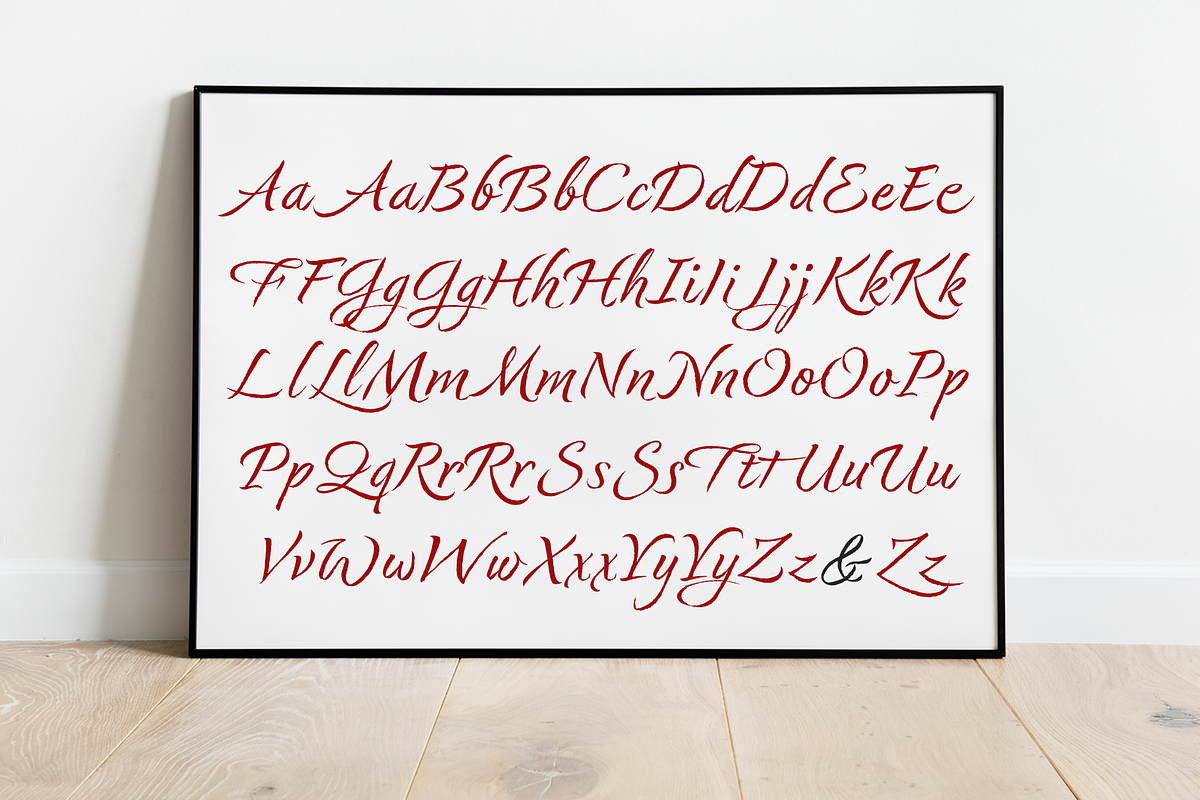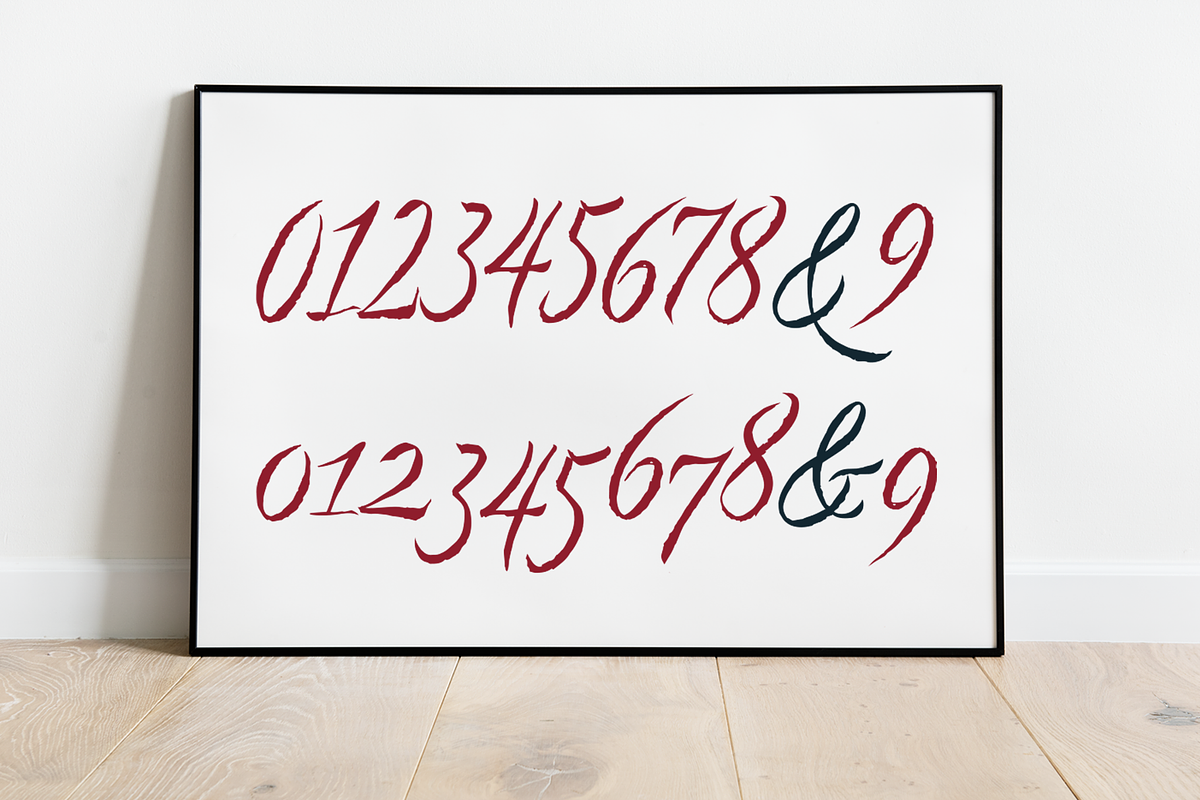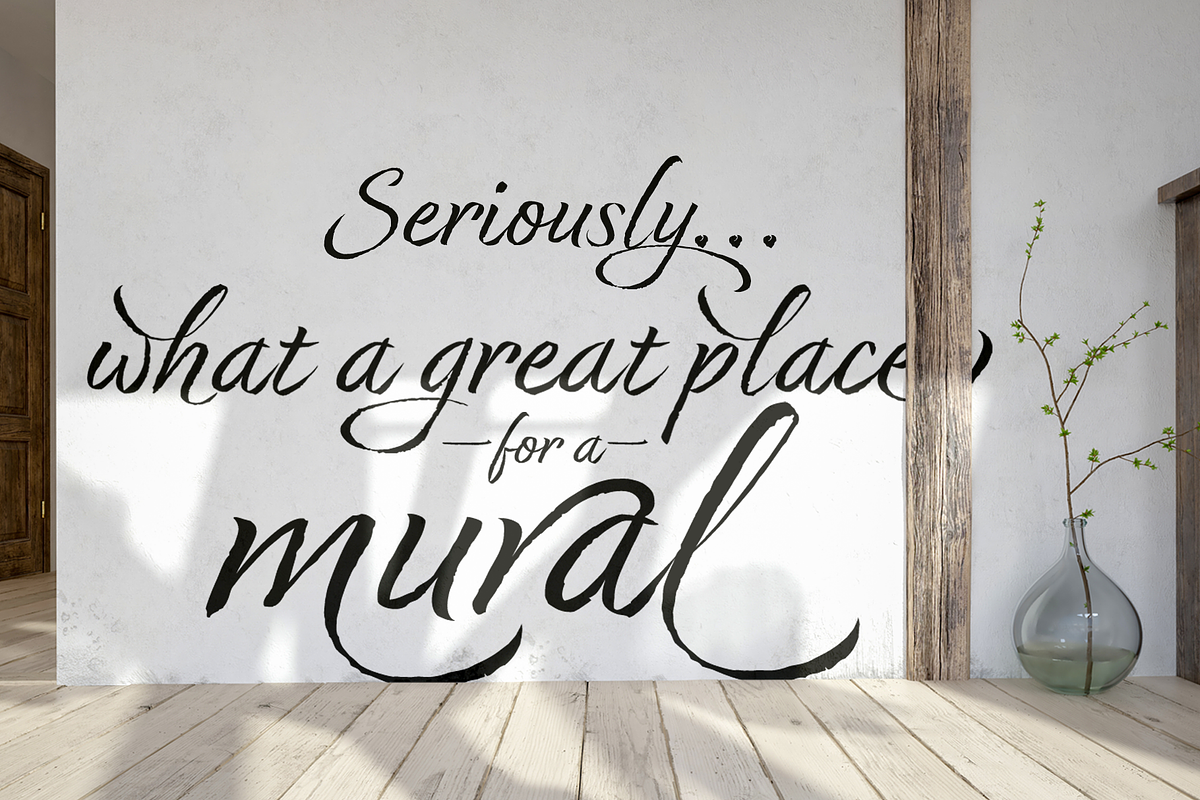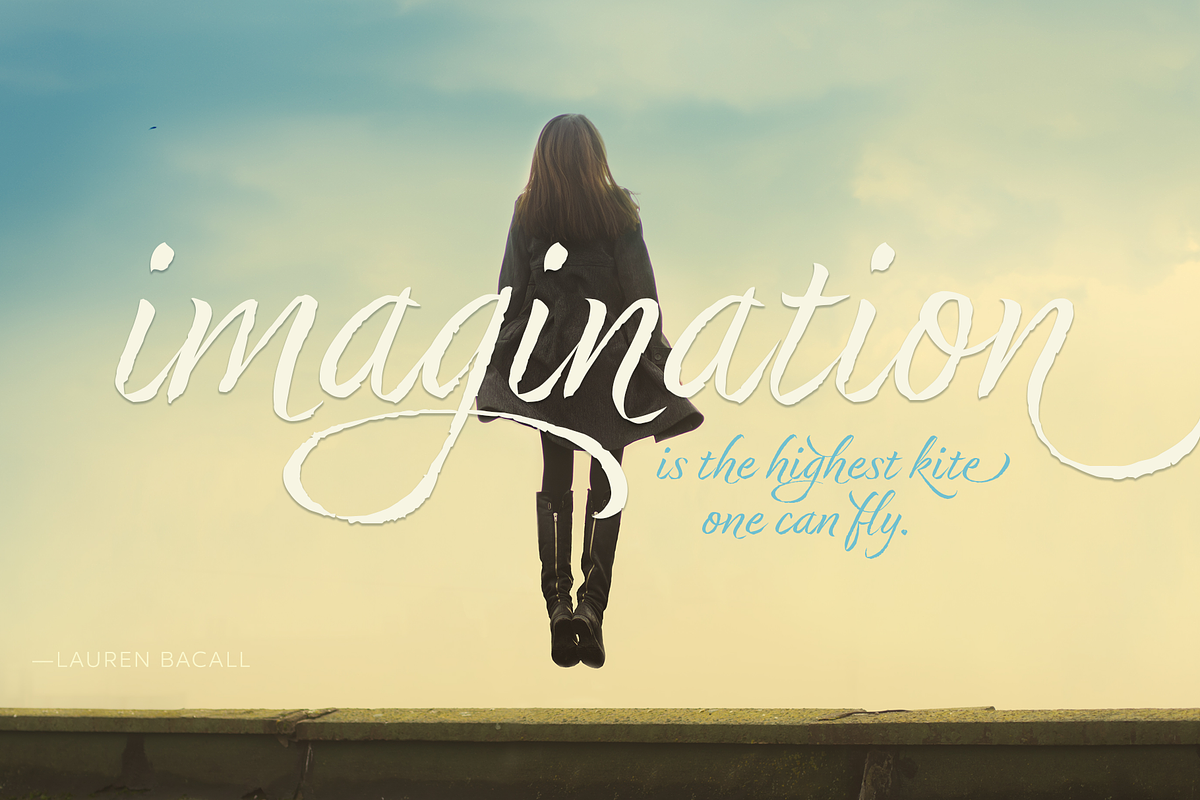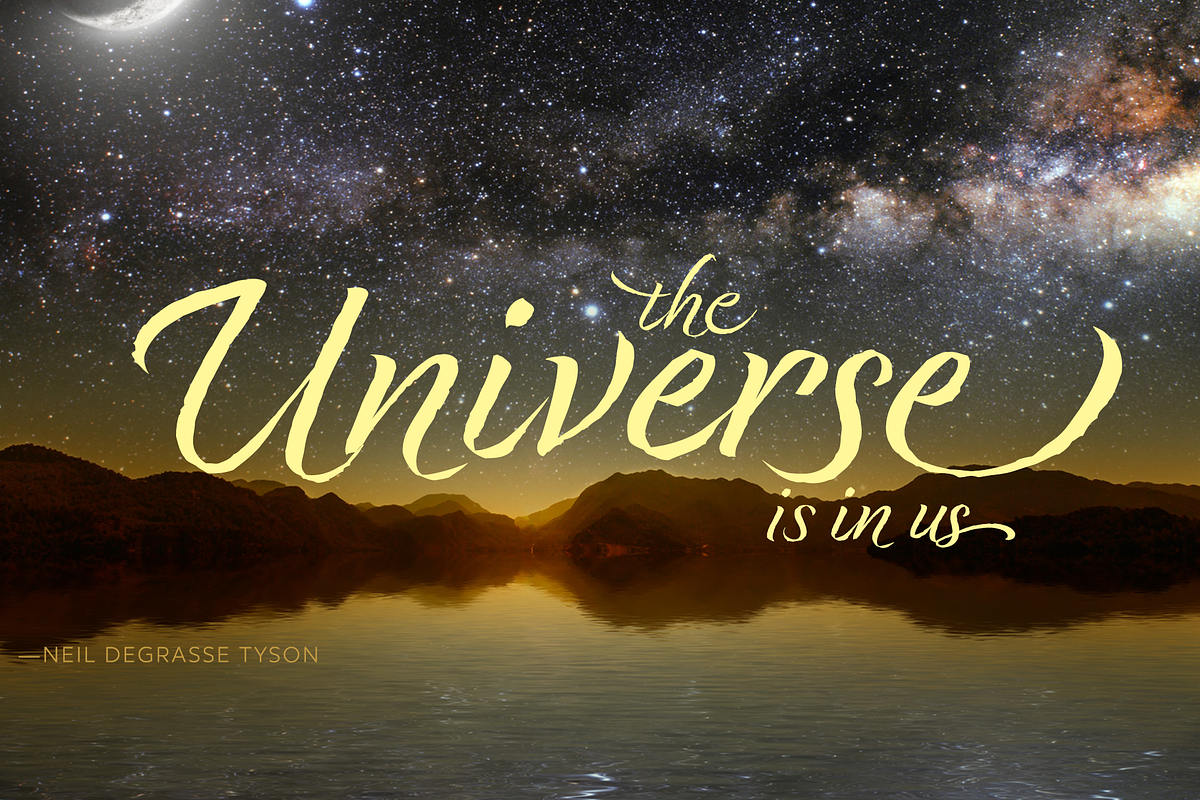
Dream Big Script Typeface
Dream Big is another foray into brush script type design that enjoy producing so much. For me, the process of producing a new script typeface using such a familiar implement is altogether relaxing and rewarding to see come to life.
As part of Neil Summerour &Positype's Relaxed Script Font Series, this typeface features a number of OpenType features that includes a number of Stylistic, Swash, and even Titling alternates. These typefaces are expertly craft and perfect for any use where you are wanting a personal or casual touch, including: invitations, weddings, social media, packaging, branding, stationery, and print advertising.
- Dream Big Regular
- Dream Big Narrow
- Dream Big Wide